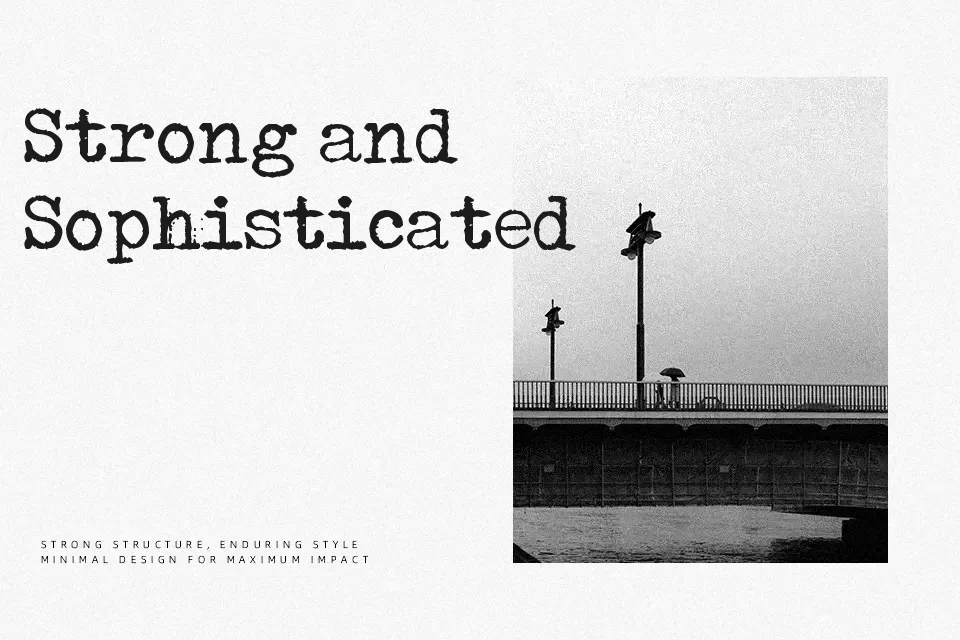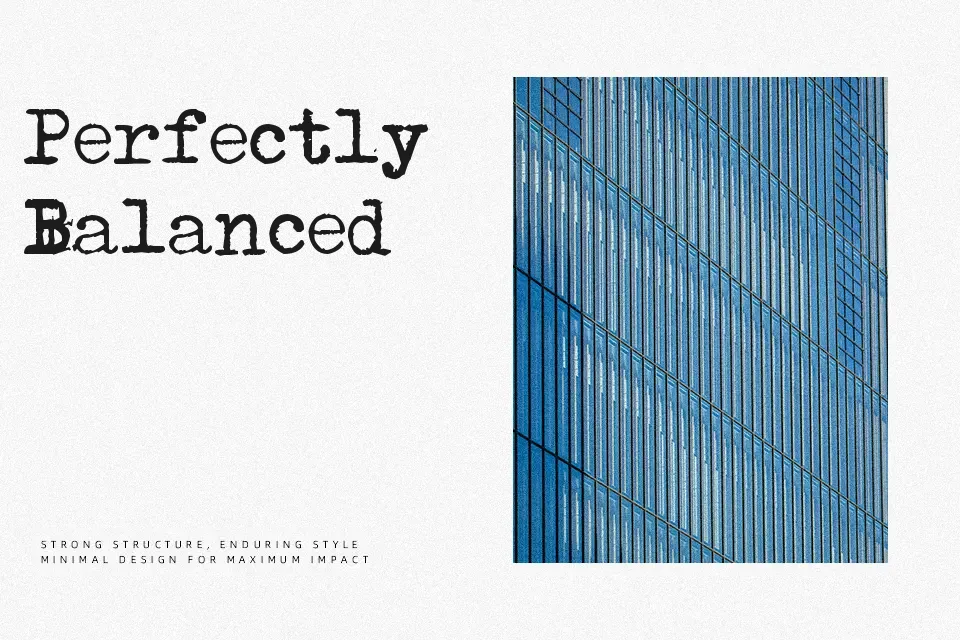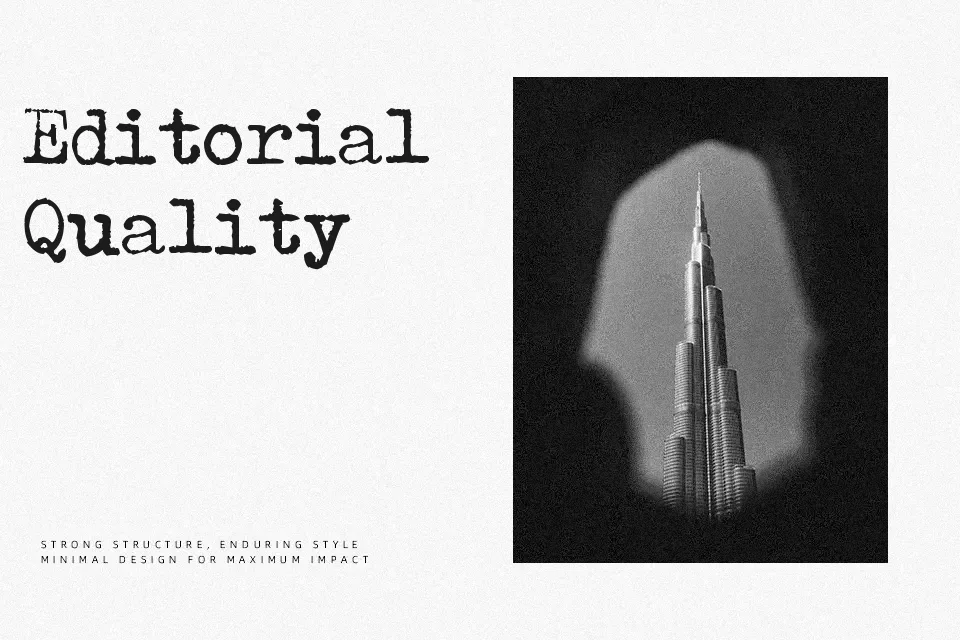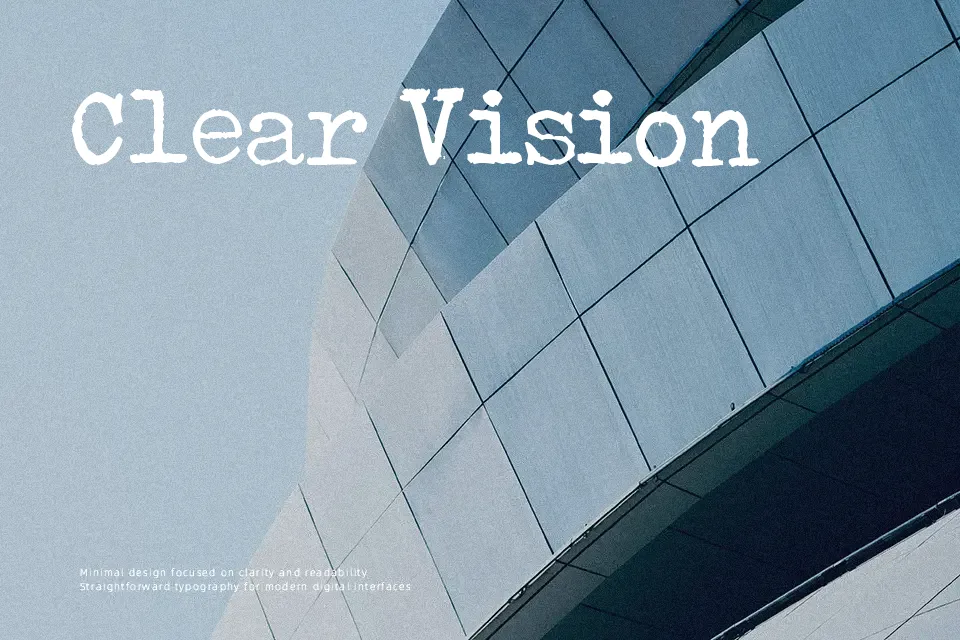
Typenoksidi Font
Designed by Juha Korhonen
Typenoksidi Font showcases uneven, weathered strokes with distinct ink bleed and chipped terminals reminiscent of a battered manual typewriter. The letterforms feature monospaced slab proportions with broad, fixed horizontal spacing that preserves individual glyph separation even under dense distress. In headline roles, such as escape room posters, archival prop documents, or retro album sleeves, the rugged contours produce an immediate sense of age and tactile realism. However, the irregular edge noise causes letter counters to fill in at reduced scales, making the design less suitable for continuous body text or compact mobile interfaces. For prominent title treatments, the typeface balances atmospheric decay with dependable glyph recognition.
Best For: escape room posters, archival prop documents, retro album covers, vintage product packaging
Not Ideal For: continuous body text, mobile interface labels, corporate legal documents, spreadsheet data
Perfect for film, gaming, and headline, with a dark and decorative style.